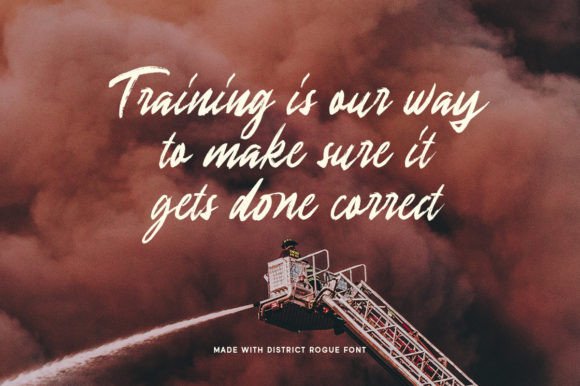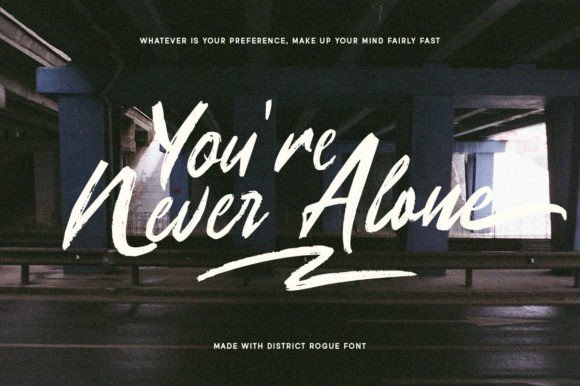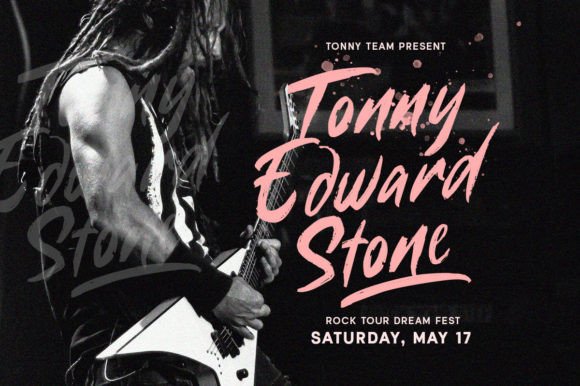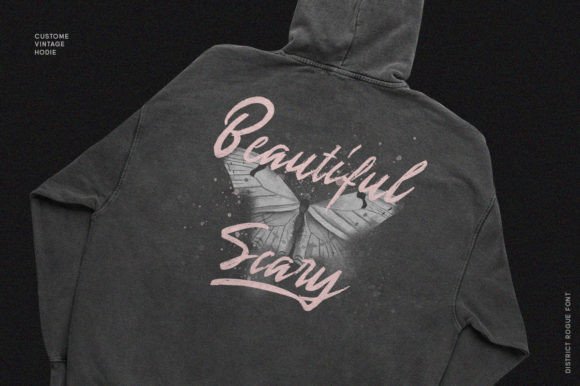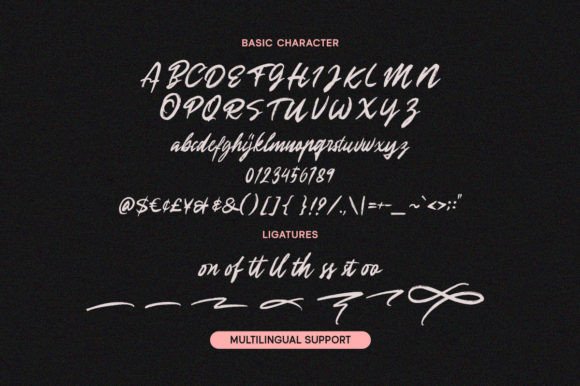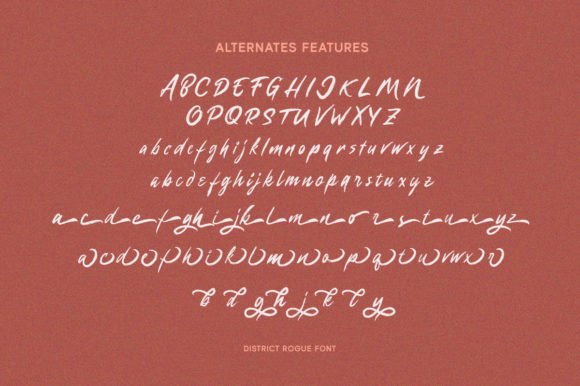
Unleash Your Creativity with District Rogue Font: A Cool, Dry Brush Display Font
Are you a designer or crafter looking for a font that can elevate your creative projects to the next level? Look no further than the District Rogue Font, a cool, dry brush display font that’s masterfully designed to become a true favorite in your collection. With its unique blend of rustic charm and modern style, this font is perfect for adding a touch of personality to your designs.
What Makes District Rogue Font Stand Out?
District Rogue Font is more than just a font – it’s a design statement. Its dry brush texture gives it a distinctive, hand-crafted feel that’s perfect for creating eye-catching headlines, titles, and logos. The font’s cool, edgy vibe makes it ideal for designs that require a bit of attitude and swagger. Whether you’re working on a branding project, a poster, or a social media graphic, District Rogue Font is sure to make your design stand out from the crowd.
Key Features of District Rogue Font
- PUA Encoded: One of the standout features of District Rogue Font is that it’s PUA (Private Use Area) encoded. This means that you can access all of the amazing glyphs and ligatures with ease, giving you even more creative possibilities.
- Dry Brush Texture: The font’s dry brush texture gives it a unique, organic feel that’s perfect for creating designs that look like they were hand-painted or drawn.
- Cool, Edgy Vibe: District Rogue Font has a cool, edgy vibe that’s perfect for designs that require a bit of attitude and swagger.
- Masterfully Designed: The font is masterfully designed to become a true favorite in your collection, with a perfect balance of style and legibility.
How to Use District Rogue Font in Your Designs
District Rogue Font is incredibly versatile and can be used in a wide range of design projects, including:
- Branding and Logos: Use District Rogue Font to create eye-catching logos and branding materials that stand out from the crowd.
- Posters and Flyers: Add a touch of personality to your posters and flyers with this cool, dry brush display font.
- Social Media Graphics: Use District Rogue Font to create engaging social media graphics that grab attention and drive engagement.
- Packaging and Labels: Add a touch of style and sophistication to your packaging and labels with this unique font.
Tips for Getting the Most Out of District Rogue Font
To get the most out of District Rogue Font, here are a few tips to keep in mind:
- Experiment with Different Sizes: District Rogue Font looks great in a variety of sizes, from small captions to large headlines. Experiment with different sizes to find the one that works best for your design.
- Play with Color: The font’s dry brush texture looks great in a range of colors, from bold and bright to muted and pastel. Experiment with different colors to find the one that works best for your design.
- Combine with Other Fonts: District Rogue Font pairs well with a range of other fonts, from clean and modern sans-serifs to elegant and sophisticated scripts. Experiment with different font combinations to find the one that works best for your design.
District Rogue Font is a cool, dry brush display font that’s perfect for designers and crafters who want to add a touch of personality to their designs. With its unique blend of rustic charm and modern style, this font is sure to become a true favorite in your collection. Whether you’re working on a branding project, a poster, or a social media graphic, District Rogue Font is the perfect choice for adding a bit of attitude and swagger to your design.